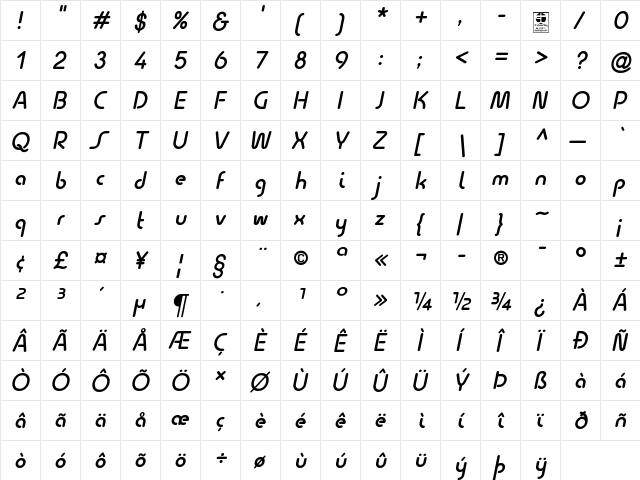
Quesat Demi Bold Demo Italic Font Preview
| Foundry | StudioTypo |
| Designer | Mehmet Abac |
Design Context for Quesat Demi Bold Demo Typeface
Quesat Demi Bold Demo offers clean, dependable letterforms without strong stylistic allegiance, making it a practical choice for designers who need flexibility. Its italic angle brings a sense of urgency and motion to the letterforms. Its bold stroke weight gives it real presence on the page.
Pro Tip: Try Quesat Demi Bold Demo for annotation and caption copy alongside an upright companion — the contrast in angle creates a dynamic but ordered typographic system.